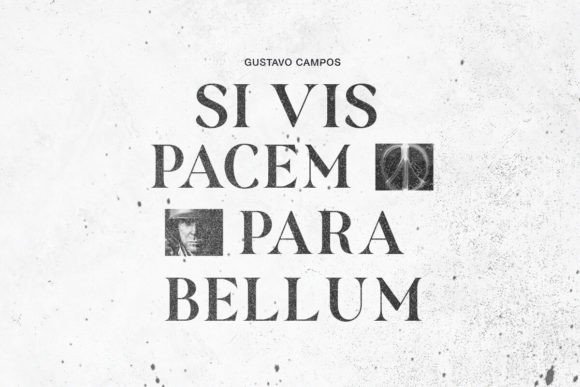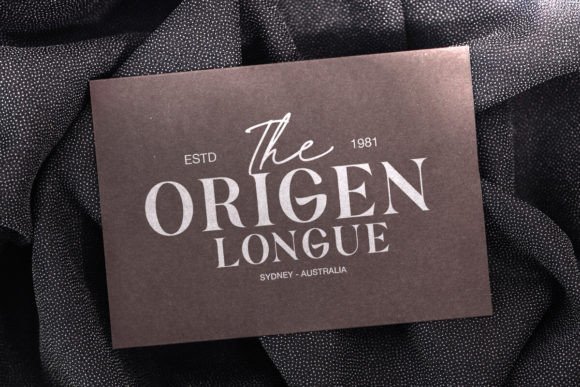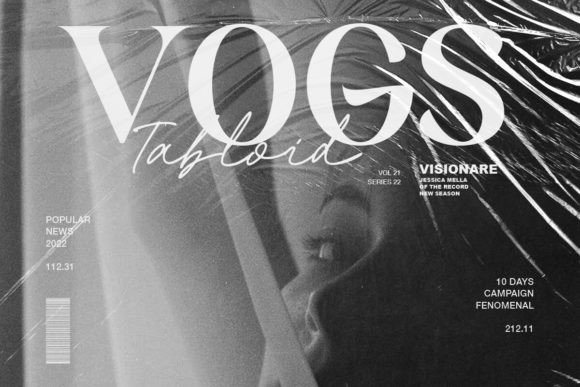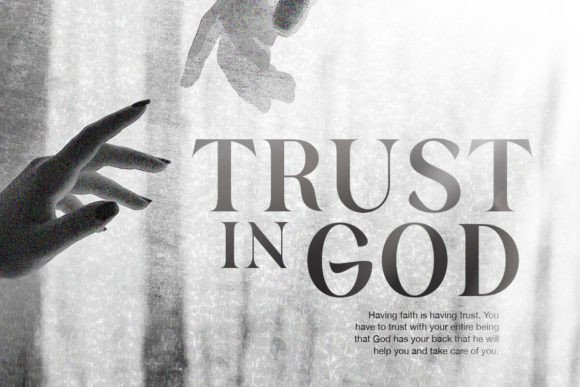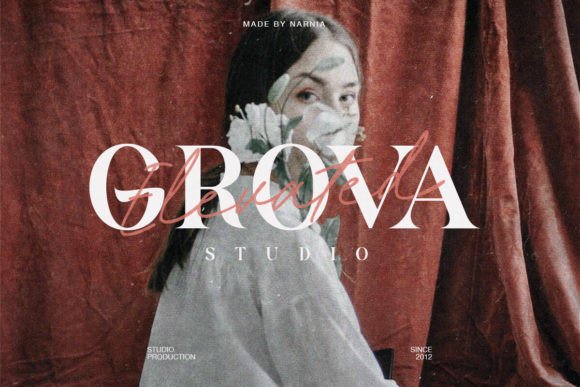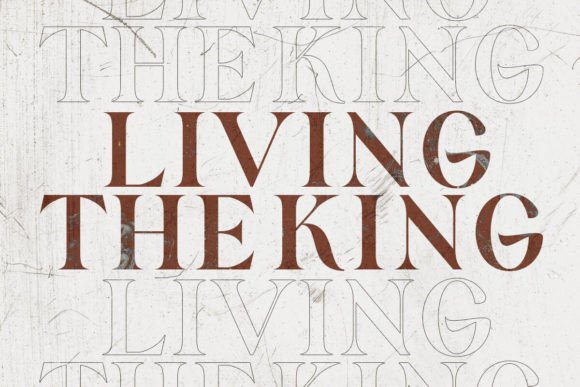
Hartens Font: The Ultimate Duo for Designers and Crafters
In the world of typography, finding the perfect font combination can be a daunting task. However, with Hartens Font, designers and crafters can rejoice in the fact that their search is over. Hartens is a thoughtfully crafted font duo that pairs a bold serif with a beautiful handwritten script, making it an ideal choice for a wide range of design projects.
The Perfect Pairing: Bold Serif and Handwritten Script
Hartens Font is a carefully curated combination of two distinct fonts that complement each other perfectly. The bold serif font exudes confidence and sophistication, while the handwritten script adds a touch of elegance and whimsy. This harmonious pairing allows designers to create stunning visual content that captures the essence of their brand or message.
One of the most significant advantages of Hartens Font is its versatility. This font duo can be used for a multitude of design projects, including branding, logos, wedding invitations, and more. Whether you’re a seasoned designer or a crafty DIY enthusiast, Hartens Font provides the perfect foundation for creating visually appealing and effective designs.
No Need to Mix and Match
One of the most significant benefits of Hartens Font is that it’s a ready-to-use combination. You don’t need to spend hours scouring font collections to find the perfect pairing. With Hartens, you can rest assured that the bold serif and handwritten script will work harmoniously together, saving you time and effort in the design process.
Wedding Invitations and Beyond
Hartens Font is particularly well-suited for wedding invitations, adding a touch of romance and sophistication to your designs. However, its uses extend far beyond wedding stationery. This font duo is perfect for:
- Branding and logos: Create a lasting impression with a bold and elegant font combination that reflects your brand’s personality.
- Packaging design: Stand out on store shelves with eye-catching packaging that features the Hartens Font duo.
- Social media graphics: Elevate your social media presence with stunning graphics that showcase the versatility of Hartens Font.
- Stationery and paper crafts: Add a personal touch to your stationery and paper crafts with the beautiful handwritten script and bold serif font.
Why Choose Hartens Font?
With so many font combinations available, why choose Hartens Font? Here are just a few reasons why designers and crafters love this font duo:
- Unique and distinctive: Hartens Font offers a fresh and unique take on traditional font combinations.
- High-quality design: The bold serif and handwritten script fonts are meticulously designed to ensure clarity and legibility.
- Time-saving: With Hartens Font, you don’t need to spend hours searching for the perfect font pairing.
- Versatile: This font duo can be used for a wide range of design projects, from branding to wedding invitations.
Get Creative with Hartens Font
Ready to unleash your creativity with Hartens Font? Whether you’re a seasoned designer or just starting out, this font duo provides the perfect foundation for creating stunning visual content. With its unique combination of bold serif and handwritten script fonts, Hartens Font is sure to elevate your designs and leave a lasting impression.
In conclusion, Hartens Font is a game-changer for designers and crafters. Its carefully curated combination of bold serif and handwritten script fonts makes it an ideal choice for a wide range of design projects. Say goodbye to font searching and hello to stunning designs with Hartens Font.